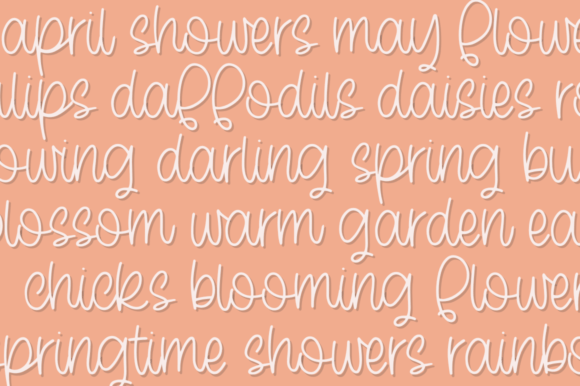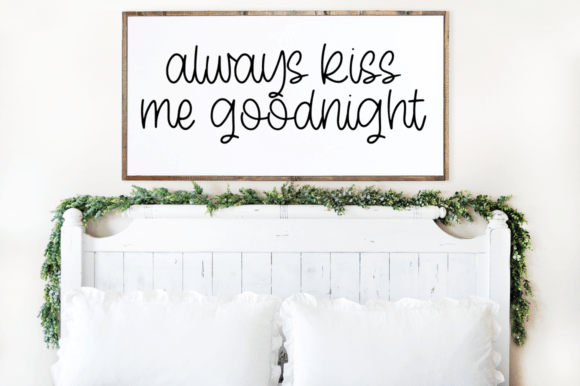
Darling Spring Font
Darling Spring is an elegant and sophisticated handwritten font, perfect for adding a touch of sophistication to your designs. Ideal for wedding invitations, branding, and websites. This font showcases a graceful flow, making it a timeless choice. This font is PUA encoded which means you can access all of the glyphs and swashes with ease!